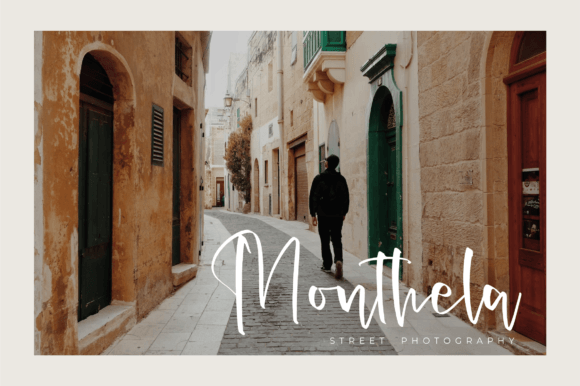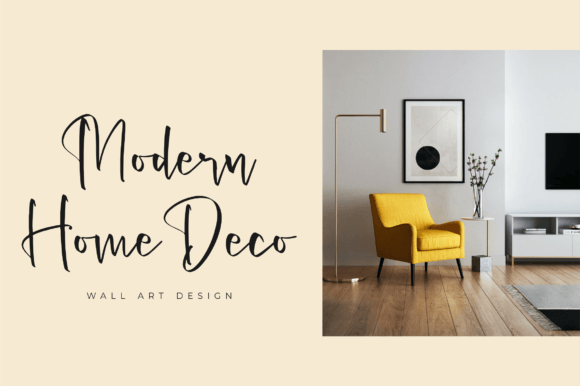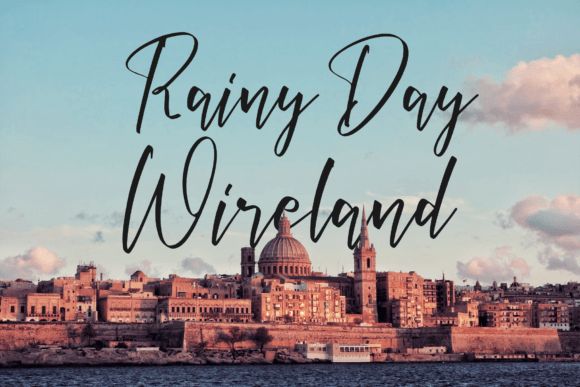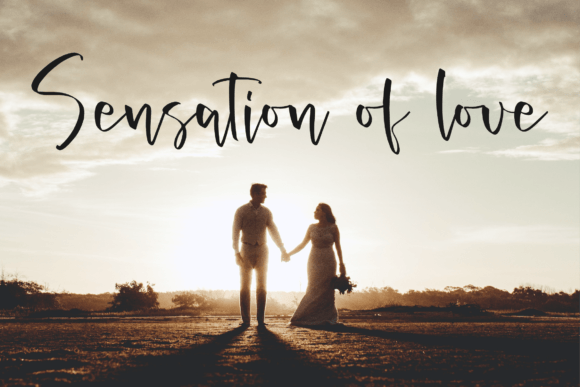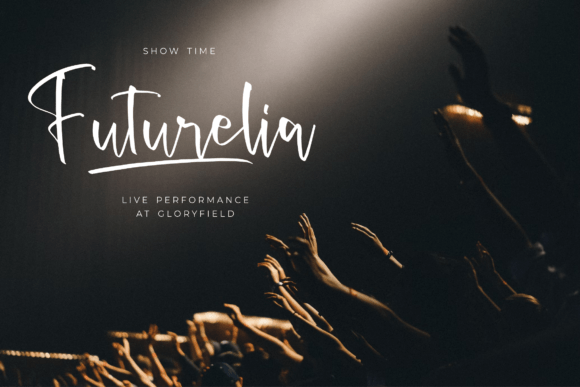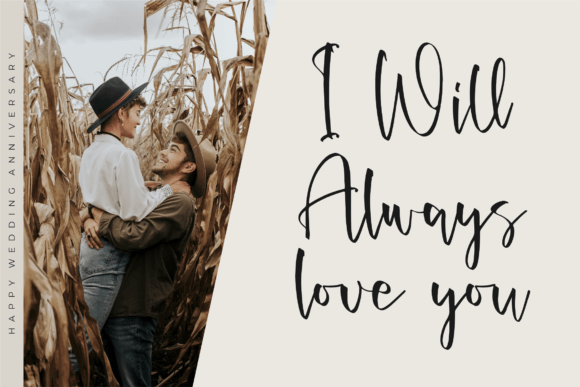
Introducing Brastelio Font: Elevate Your Designs with Modern Elegance
Are you a designer or crafter looking for a font that can add a touch of modern sophistication to your projects? Look no further than Brastelio Font, a stunning script font designed to elevate your designs and make them stand out. In this article, we’ll explore the features and benefits of Brastelio Font, and how it can be used to enhance a wide range of projects, from logos and branding to homeware designs and more.
What is Brastelio Font?
Brastelio Font is a modern script font that is suitable for a wide range of projects, including logos, branding projects, homeware designs, product packaging, mugs, quotes, posters, shopping bags, t-shirts, book covers, name cards, invitation cards, greeting cards, labels, photography, watermark, special events, and more. This versatile font is designed to add a touch of elegance and sophistication to any project, making it perfect for designers and crafters who want to create beautiful and professional-looking designs.
Key Features of Brastelio Font
So, what makes Brastelio Font so special? Here are some of its key features:
- Modern Script Style: Brastelio Font features a modern script style that is both elegant and sophisticated. Its flowing lines and beautiful letterforms make it perfect for designs that require a touch of luxury and refinement.
- Highly Versatile: Brastelio Font is highly versatile and can be used for a wide range of projects, from logos and branding to homeware designs and more.
- Easy to Read: Despite its elegant style, Brastelio Font is easy to read, making it perfect for designs that require a clear and concise message.
- Scalable: Brastelio Font is highly scalable, meaning it can be used for designs of all sizes, from small name cards to large posters.
Benefits of Using Brastelio Font
So, why should you choose Brastelio Font for your designs? Here are some of the benefits of using this beautiful font:
- Adds Elegance and Sophistication: Brastelio Font adds a touch of elegance and sophistication to any design, making it perfect for designers and crafters who want to create beautiful and professional-looking designs.
- Enhances Brand Identity: Brastelio Font can be used to enhance brand identity by creating a consistent and cohesive visual style across all marketing materials.
- Increases Readability: Brastelio Font is easy to read, making it perfect for designs that require a clear and concise message.
- Versatile and Flexible: Brastelio Font is highly versatile and can be used for a wide range of projects, making it a great investment for designers and crafters.
How to Use Brastelio Font
Using Brastelio Font is easy. Here are some tips on how to get the most out of this beautiful font:
- Use it for Logos and Branding: Brastelio Font is perfect for logos and branding projects, as it adds a touch of elegance and sophistication to any design.
- Pair it with Other Fonts: Brastelio Font can be paired with other fonts to create a unique and visually appealing design.
- Experiment with Different Sizes: Brastelio Font is highly scalable, so don’t be afraid to experiment with different sizes to find the one that works best for your design.